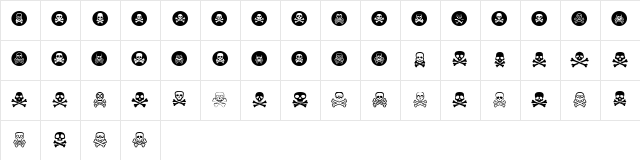
Skallen Regular Font Preview
Skallen Regular
Skallen Regular Font Details
Design Context for Skallen Typeface
Skallen is a composed and adaptable typeface that performs quietly and consistently across a wide range of design contexts.